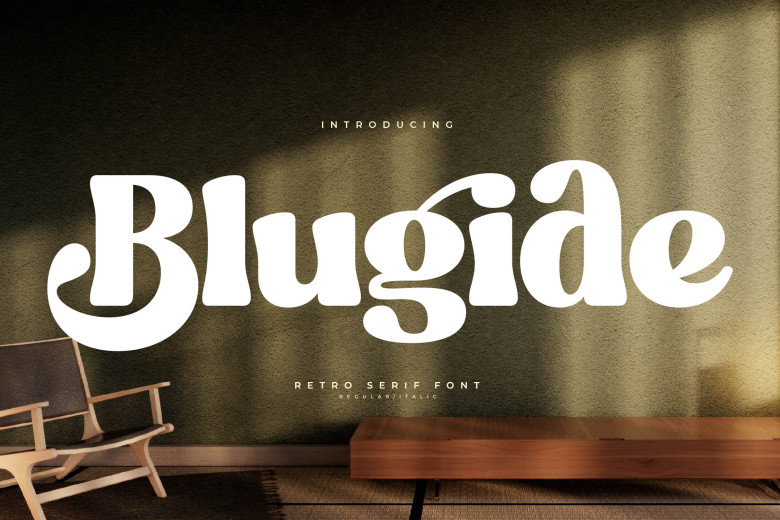
Blugide Font
Blugide is a classy serif font, charming and elegant with an air of refinement. For grandeur in comfort, taylor your typography with generous ascenders and descenders and open counters instead. Taylor your designs with the timeless elegance of Blugide. This font makes your designs that will be seen for generations to come, the epitome of aristocratic style.
Blugide Serif Font